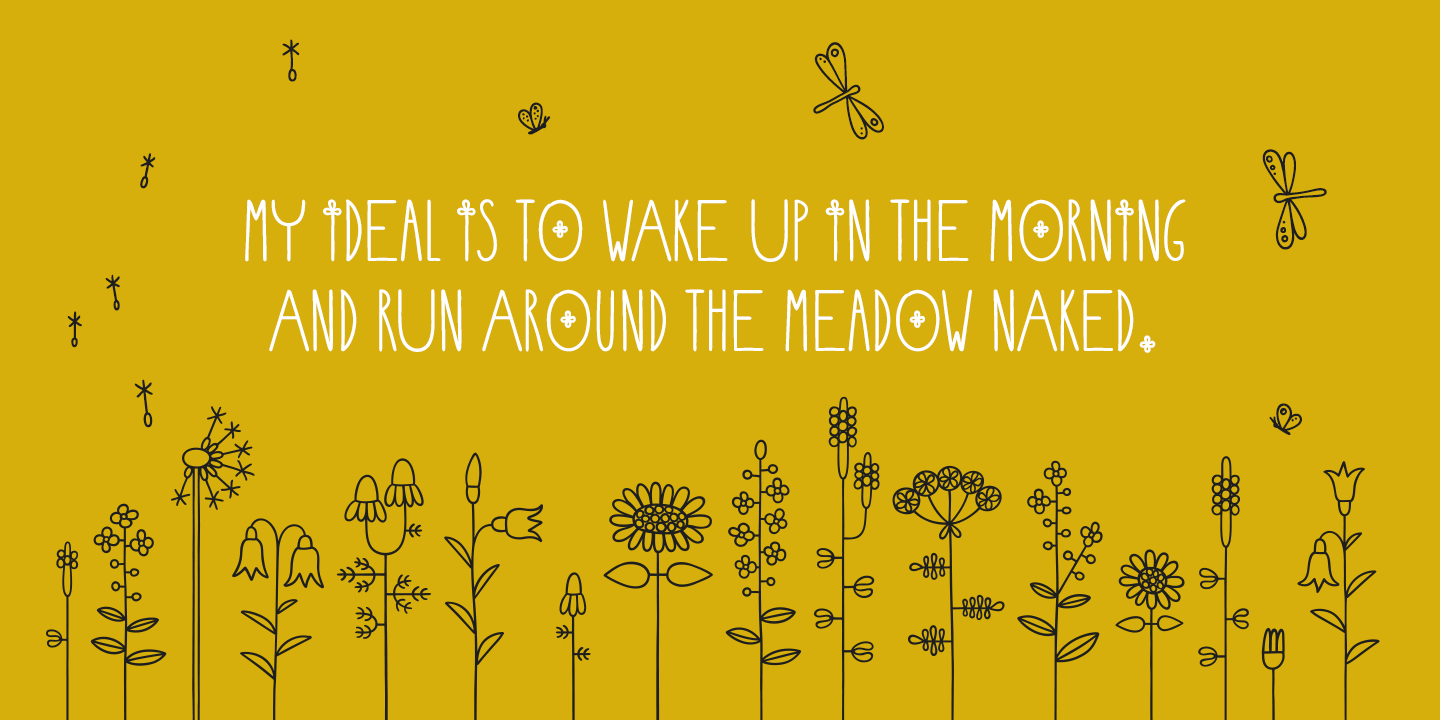
Sungarden Font is perfect for organic garden center branding, sustainable agriculture communications, botanical wellness retreat materials, eco-friendly nursery signage, permaculture educational programs, nature preserve visitor centers, solar-powered greenhouse projects, sustainable living workshops, organic farm-to-table restaurants, and holistic environmental lifestyle marketing campaigns.
What makes Sungarden Font so exciting is its extraordinary ability to capture the harmonious balance between solar energy and botanical growth through naturally luminous letterforms that seem cultivated by master gardeners who understand that the most beautiful gardens emerge when human wisdom works in perfect partnership with nature's own design principles and the life-giving power of sunlight. This font embodies the essence of sustainable gardening and ecological harmony, featuring organically structured characters that appear to grow like healthy plants reaching toward the sun while maintaining the systematic organization that creates thriving garden ecosystems. The naturally radiant letter shapes create an atmosphere of environmental wellness and sustainable abundance, making every word feel like it carries the promise of discovering how human creativity can enhance rather than diminish the natural world's capacity for beauty, productivity, and ecological balance.
The Sungarden Font family includes Ultra Light, Light, Regular, Medium, Bold, and Flourishing variations, along with botanical symbols and solar-inspired decorative elements. Each style maintains the font's distinctive eco-garden character while offering versatility for different sustainable applications, from gentle planting instructions to bold harvest celebration headlines that announce the success of ecological farming and sustainable living practices.
This radiant typeface brings authentic sustainable gardening aesthetics to contemporary design projects. The Sungarden Font Free Download provides designers with an invaluable resource for creating memorable brand identities that communicate environmental responsibility, natural abundance, and sustainable garden wisdom. Whether you're developing organic agriculture branding, designing eco-friendly lifestyle materials, or creating sustainable living communications, this font delivers unmatched ecological credibility and garden authenticity.
The lovingly cultivated letterforms in Sungarden Font feature organic curves and solar-inspired proportions that mirror the natural growth patterns of plants reaching toward sunlight and the systematic principles that create productive gardens where every element serves the health of the whole ecosystem. Each character has been designed to maintain perfect readability while expressing the environmental wisdom and sustainable practices that define authentic ecological gardening. The font's distinctive personality makes it ideal for applications requiring genuine sustainability authority and organic garden appeal.
Sustainable agriculture and environmental professionals appreciate how Sungarden Font effortlessly communicates ecological responsibility, natural abundance, and sustainable garden wisdom while appealing to environmentally conscious individuals seeking authentic experiences that honor both productive agriculture and environmental stewardship. The comprehensive character set includes botanical symbols, sustainability indicators, solar elements, and extensive international language support, ensuring global compatibility while preserving its distinctive sungarden identity. This makes it an invaluable resource for organic farms, garden centers, environmental organizations, and any institution seeking typography that embodies the fundamental values of ecological harmony, sustainable abundance, and the kind of environmental wisdom that creates gardens where human needs and natural systems work together to produce food, beauty, and ecological health through the patient application of sustainable practices that honor the earth's capacity for renewal while meeting human needs for nourishment, beauty, and connection to the natural cycles that sustain all life through the generous partnership between human creativity and the sun's life-giving energy that makes all gardens possible.